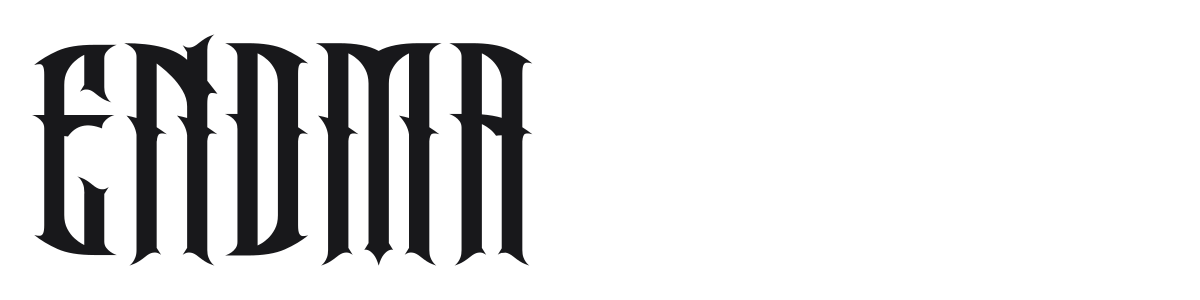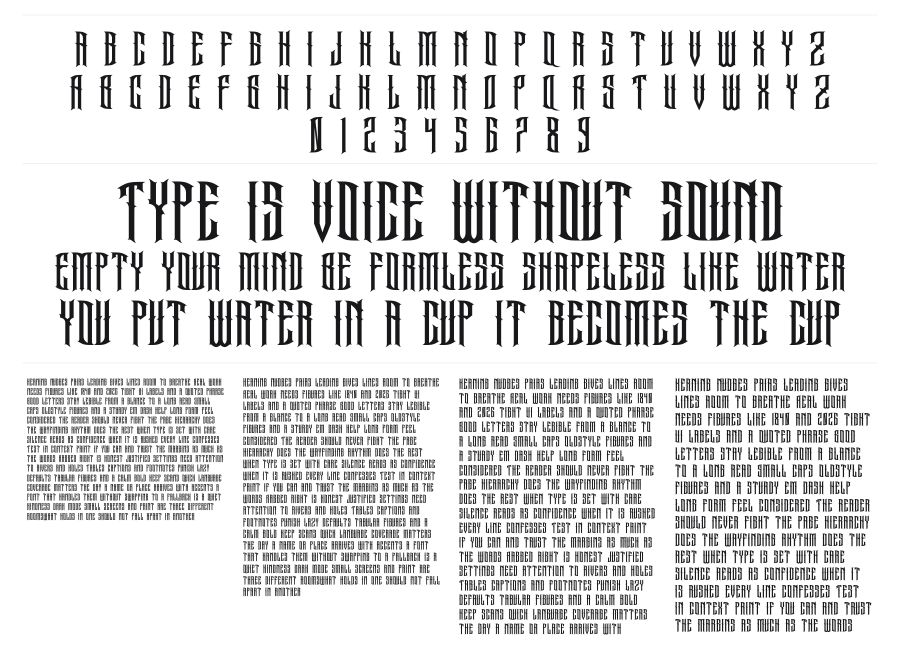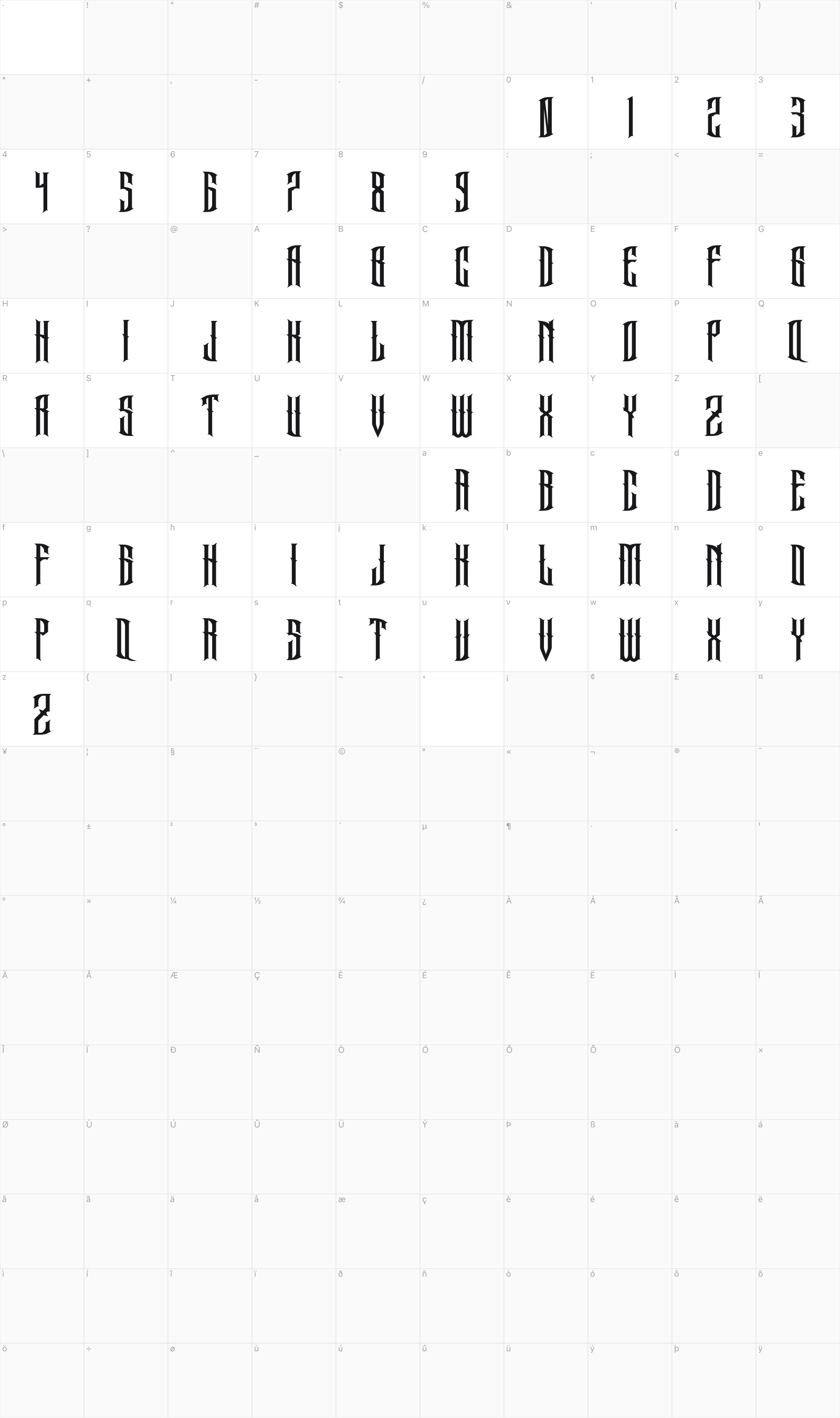
Endma
Endma is a condensed gothic blackletter with sharp, angular construction and intense stroke contrast. The tall narrow forms press close together, creating a dense, powerful texture that suits metal band logos, editorial headlines, and streetwear graphics. It carries clear medieval roots while reading as distinctly contemporary.